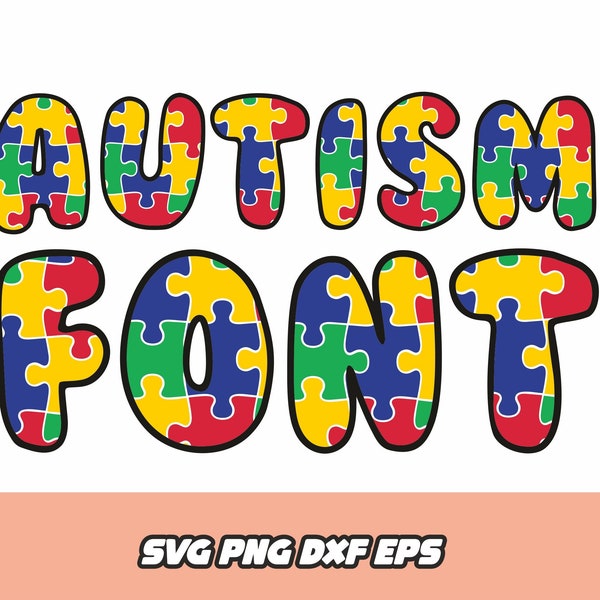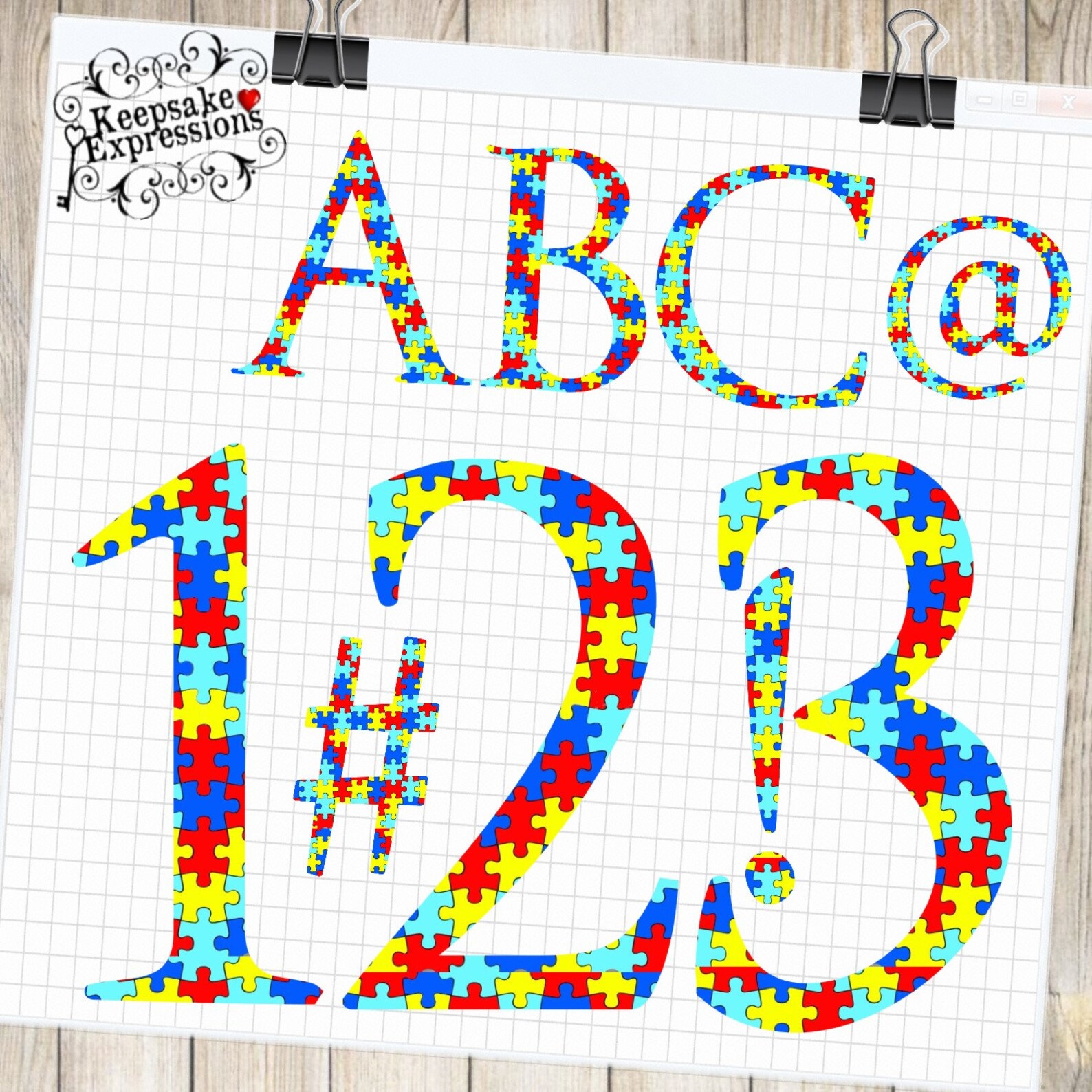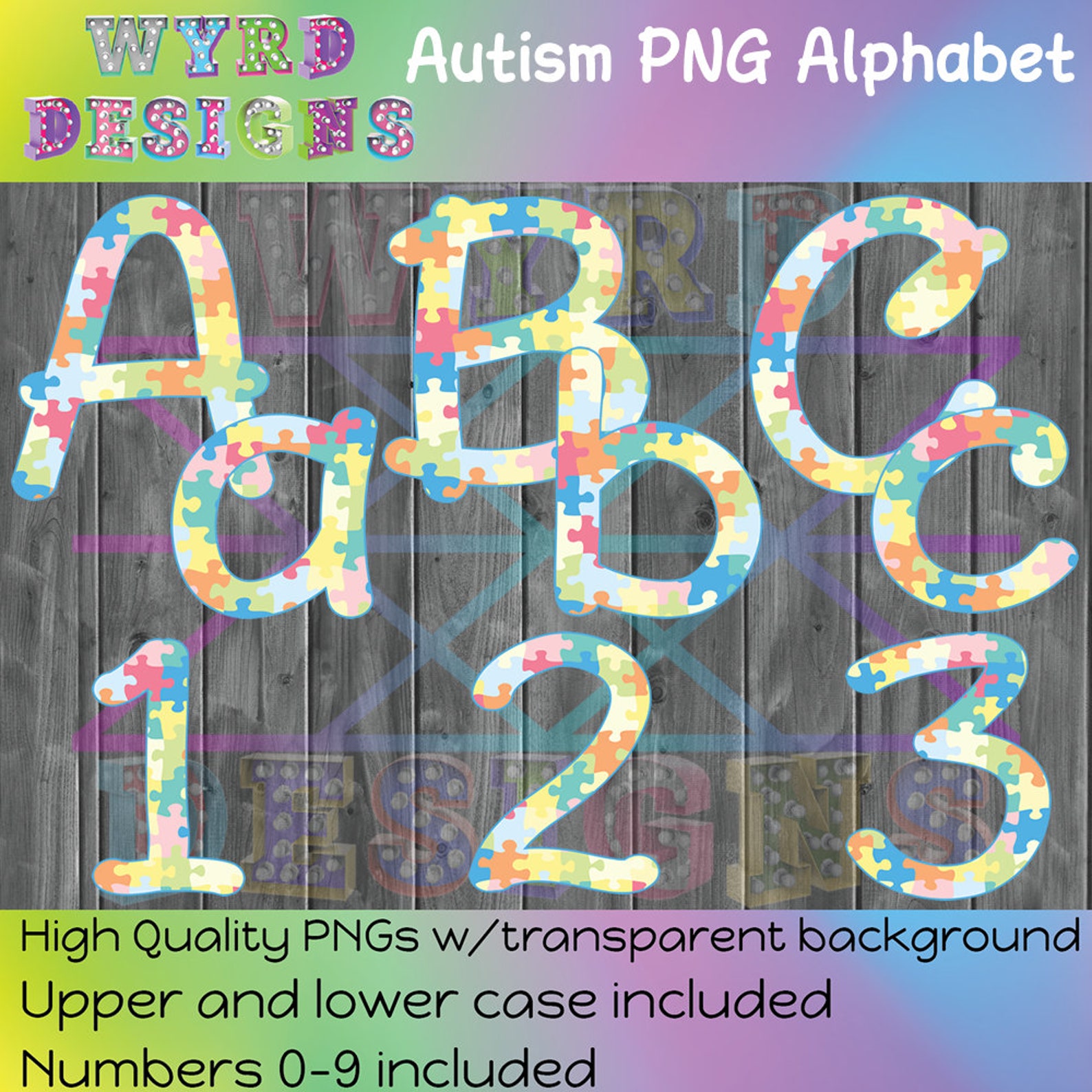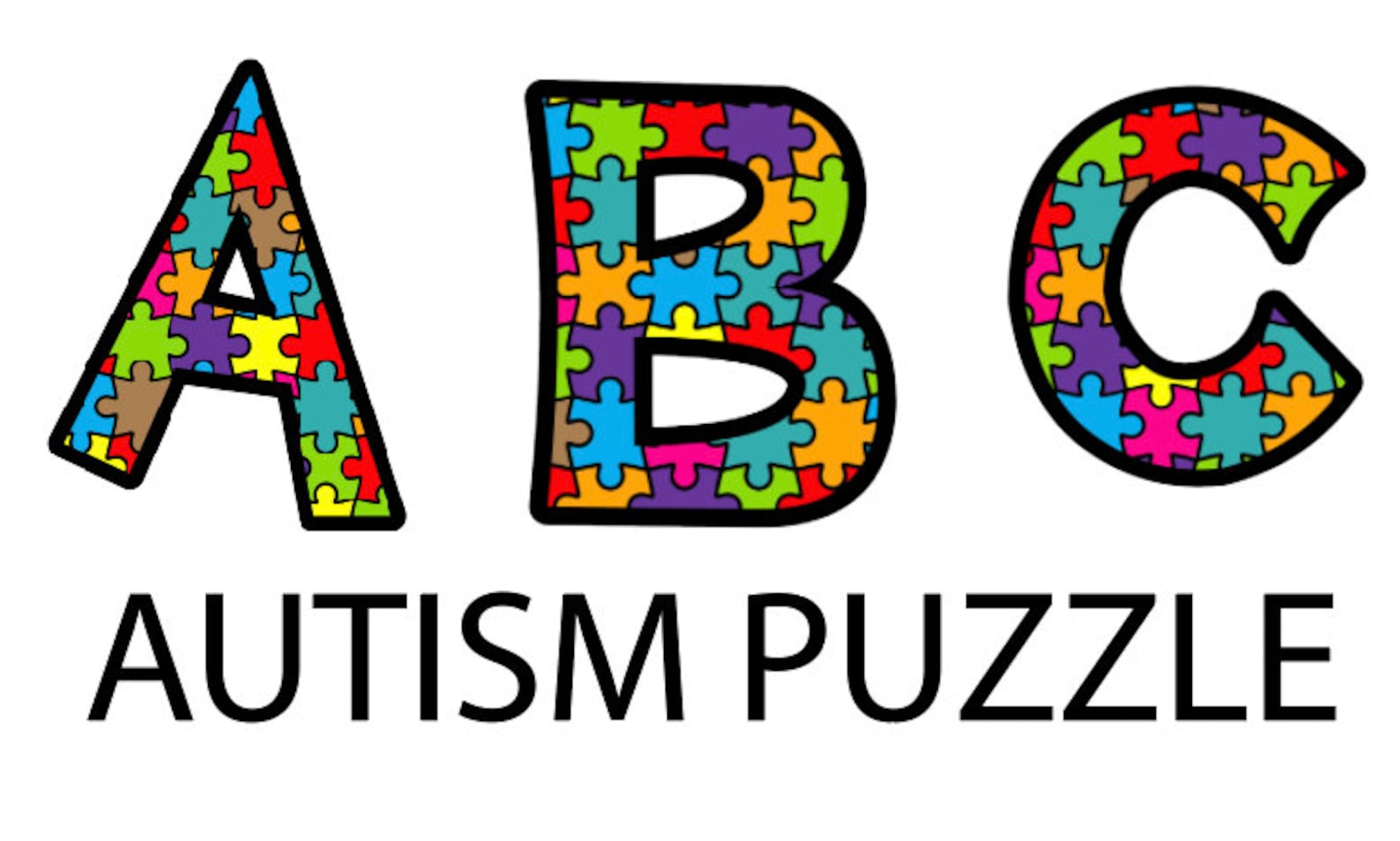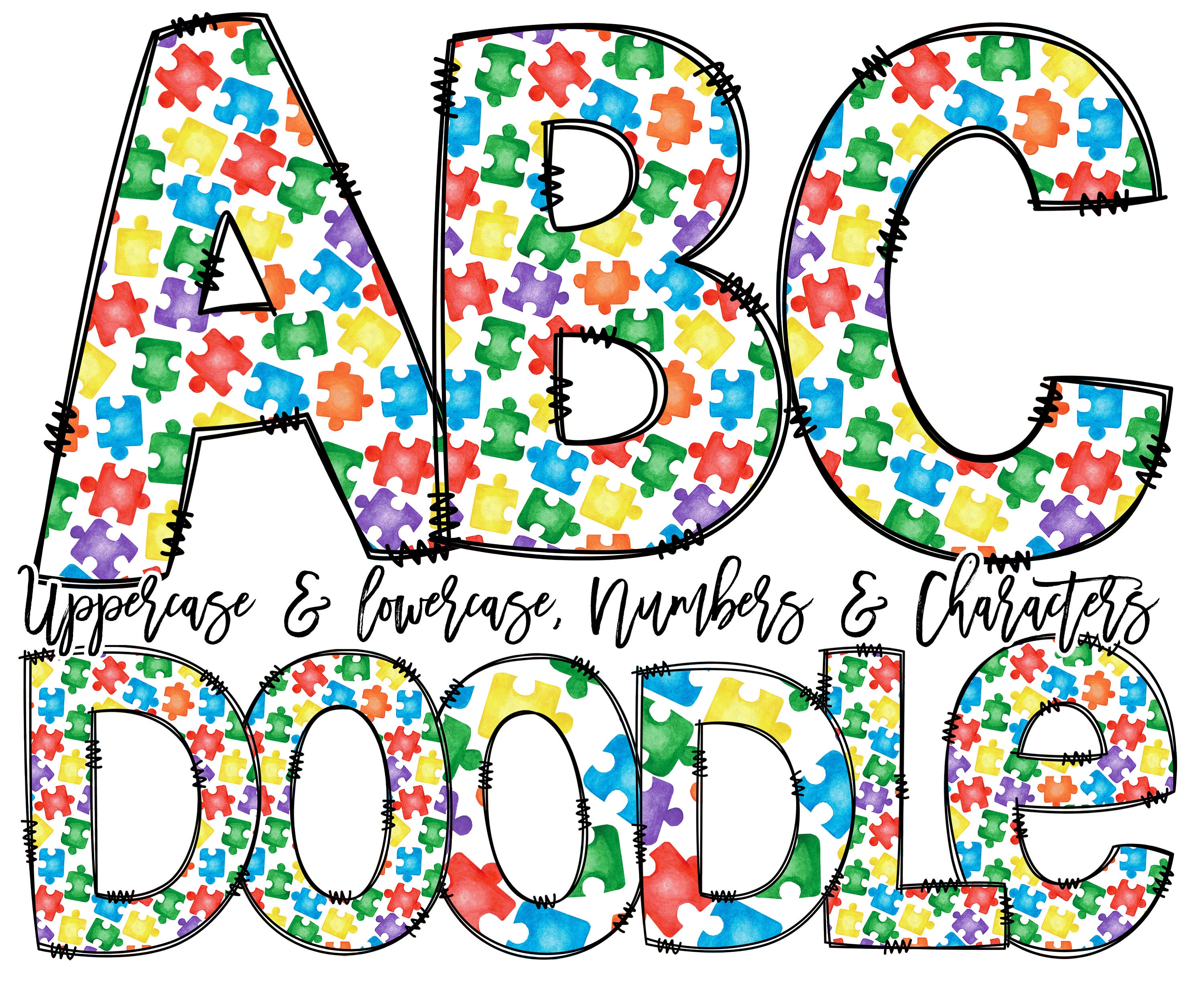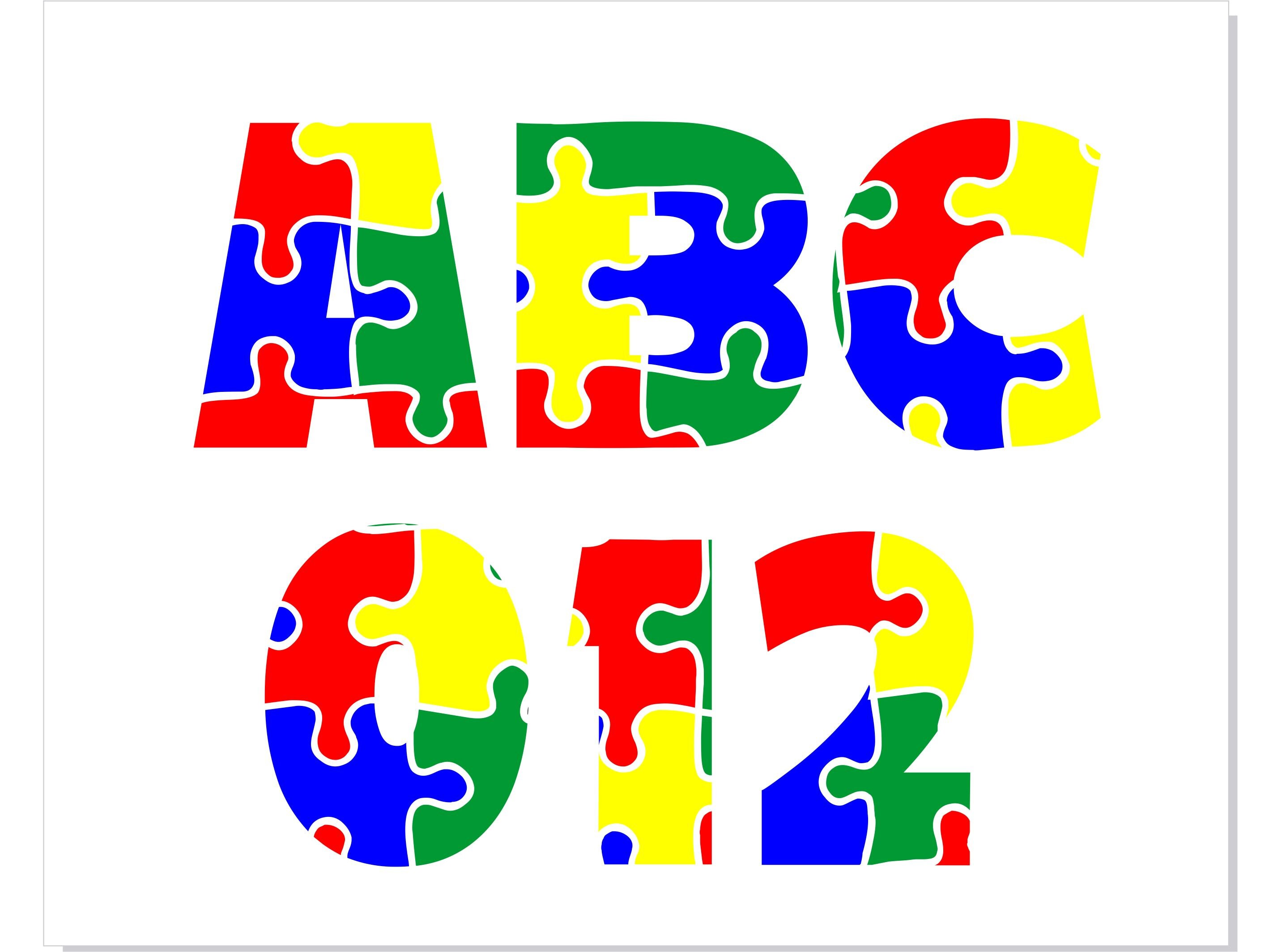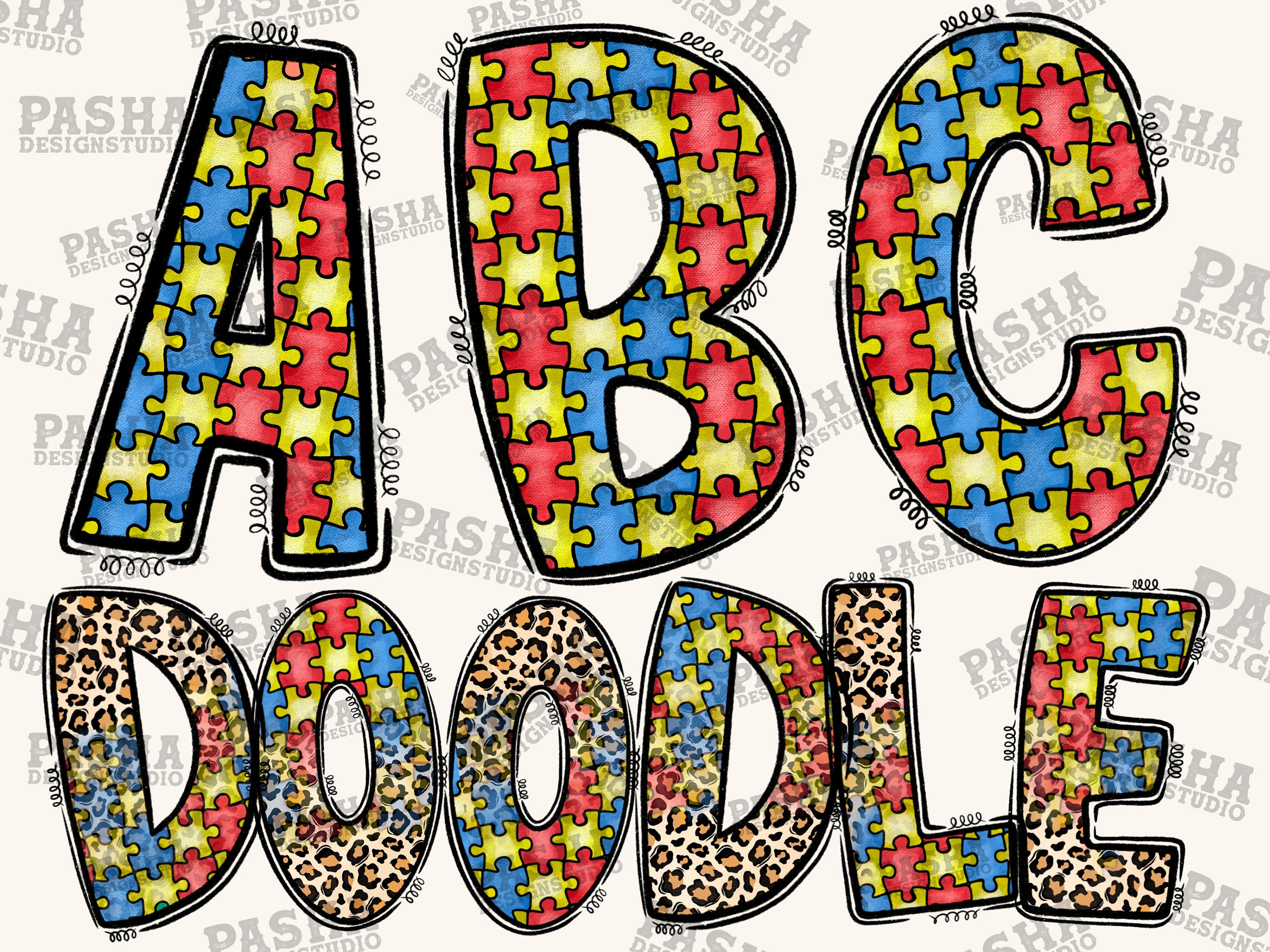
Best Fonts For Autism . In terms of font choices, individuals with asd often benefit from fonts that have visual consistency and simplicity. Explore the best fonts for accessibility in our guide, offering tips on readability, ada/wcag compliance, and making digital content inclusive. As an autistic designer i have already done some research and asked the community (still waiting for more input) on what they prefer in a font. Autism sans, a revolutionary font designed specifically for individuals on the autism spectrum, is changing the landscape of. If you’re that invested there might be studies on accessible. There are specific fonts more accessible and less infantilized than comic sans for neurodivergent folks today. Students with autism benefit from structured tasks, the use of visuals, multiple exemplars, discrimination training, and routine based instruction. I don’t know about the rest but josefin sans and oswald are my favorite fonts. Calibri, helvetica, and times new roman are some recommended fonts for individuals with asd.
As an autistic designer i have already done some research and asked the community (still waiting for more input) on what they prefer in a font. There are specific fonts more accessible and less infantilized than comic sans for neurodivergent folks today. I don’t know about the rest but josefin sans and oswald are my favorite fonts. Explore the best fonts for accessibility in our guide, offering tips on readability, ada/wcag compliance, and making digital content inclusive. If you’re that invested there might be studies on accessible. Calibri, helvetica, and times new roman are some recommended fonts for individuals with asd. Autism sans, a revolutionary font designed specifically for individuals on the autism spectrum, is changing the landscape of. Students with autism benefit from structured tasks, the use of visuals, multiple exemplars, discrimination training, and routine based instruction. In terms of font choices, individuals with asd often benefit from fonts that have visual consistency and simplicity.
Best Fonts For Autism Autism sans, a revolutionary font designed specifically for individuals on the autism spectrum, is changing the landscape of. I don’t know about the rest but josefin sans and oswald are my favorite fonts. As an autistic designer i have already done some research and asked the community (still waiting for more input) on what they prefer in a font. Students with autism benefit from structured tasks, the use of visuals, multiple exemplars, discrimination training, and routine based instruction. In terms of font choices, individuals with asd often benefit from fonts that have visual consistency and simplicity. There are specific fonts more accessible and less infantilized than comic sans for neurodivergent folks today. Autism sans, a revolutionary font designed specifically for individuals on the autism spectrum, is changing the landscape of. If you’re that invested there might be studies on accessible. Explore the best fonts for accessibility in our guide, offering tips on readability, ada/wcag compliance, and making digital content inclusive. Calibri, helvetica, and times new roman are some recommended fonts for individuals with asd.
Autism Puzzle Font Etsy Best Fonts For Autism If you’re that invested there might be studies on accessible. Autism sans, a revolutionary font designed specifically for individuals on the autism spectrum, is changing the landscape of. Students with autism benefit from structured tasks, the use of visuals, multiple exemplars, discrimination training, and routine based instruction. I don’t know about the rest but josefin sans and oswald are my. Best Fonts For Autism.
Autism Font by Apple Craft · Creative Fabrica Best Fonts For Autism Explore the best fonts for accessibility in our guide, offering tips on readability, ada/wcag compliance, and making digital content inclusive. As an autistic designer i have already done some research and asked the community (still waiting for more input) on what they prefer in a font. Calibri, helvetica, and times new roman are some recommended fonts for individuals with asd.. Best Fonts For Autism.
Autism Alphabet Graphic by Owlsome.art · Creative Fabrica Best Fonts For Autism There are specific fonts more accessible and less infantilized than comic sans for neurodivergent folks today. Calibri, helvetica, and times new roman are some recommended fonts for individuals with asd. As an autistic designer i have already done some research and asked the community (still waiting for more input) on what they prefer in a font. Explore the best fonts. Best Fonts For Autism.
Autism Font Etsy Best Fonts For Autism Students with autism benefit from structured tasks, the use of visuals, multiple exemplars, discrimination training, and routine based instruction. Calibri, helvetica, and times new roman are some recommended fonts for individuals with asd. Explore the best fonts for accessibility in our guide, offering tips on readability, ada/wcag compliance, and making digital content inclusive. There are specific fonts more accessible and. Best Fonts For Autism.
Autism Font SVG, Autism Alphabet, Svg Cut Files, Autism Awareness Svg Best Fonts For Autism Students with autism benefit from structured tasks, the use of visuals, multiple exemplars, discrimination training, and routine based instruction. There are specific fonts more accessible and less infantilized than comic sans for neurodivergent folks today. If you’re that invested there might be studies on accessible. I don’t know about the rest but josefin sans and oswald are my favorite fonts.. Best Fonts For Autism.
Doodle Font Autism Awareness Doodle Letters Autistic Alphabet Etsy Best Fonts For Autism As an autistic designer i have already done some research and asked the community (still waiting for more input) on what they prefer in a font. Calibri, helvetica, and times new roman are some recommended fonts for individuals with asd. Students with autism benefit from structured tasks, the use of visuals, multiple exemplars, discrimination training, and routine based instruction. There. Best Fonts For Autism.